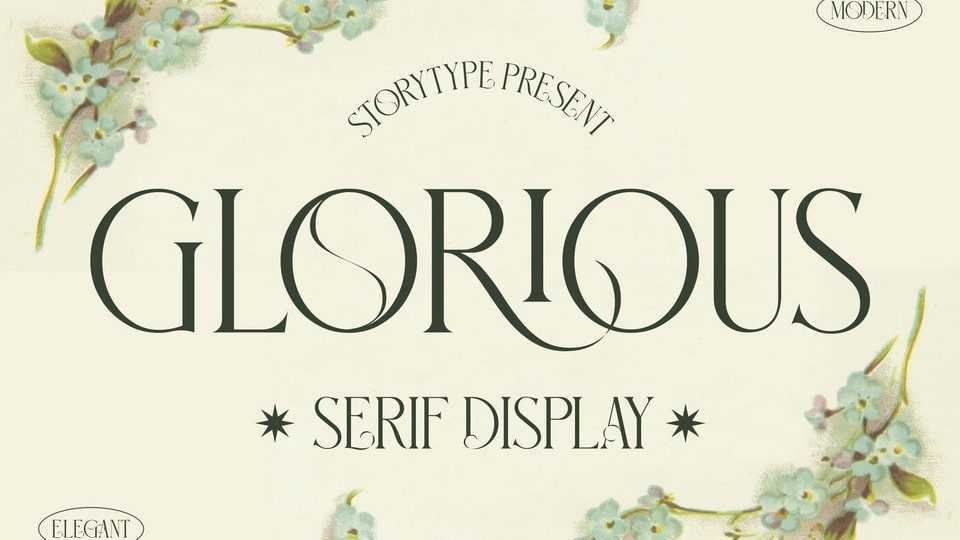
Download Glorious font, a unique and modern serif typeface. Glorious is perfect for elegant and luxurious logos, book or movie title designs, fashion brands, magazines, clothing, fonts, quotes, and many more.